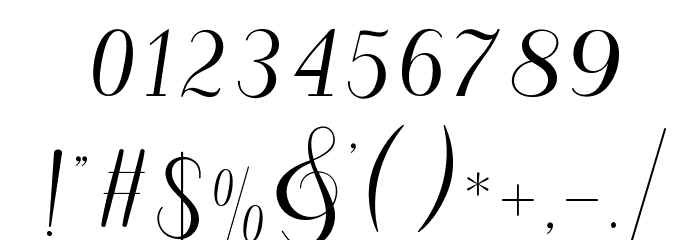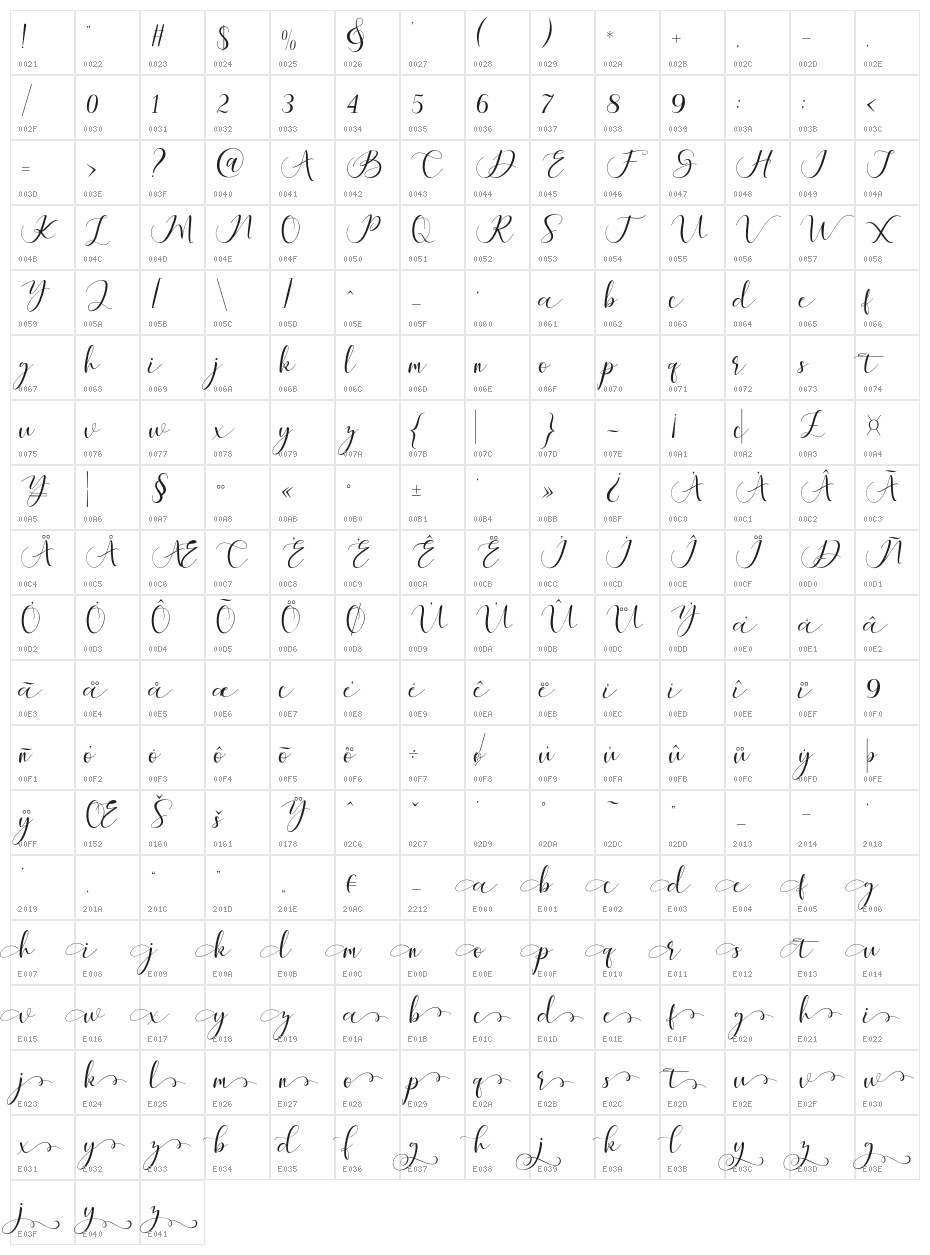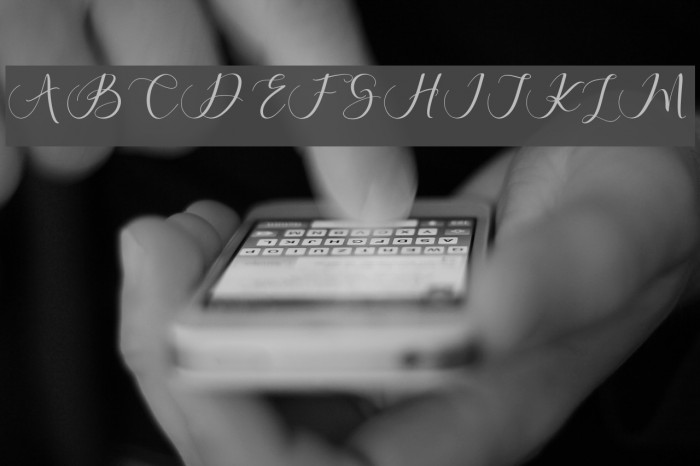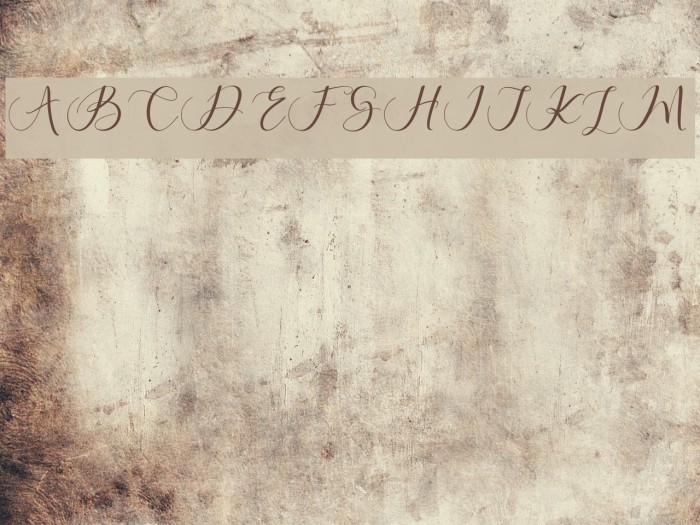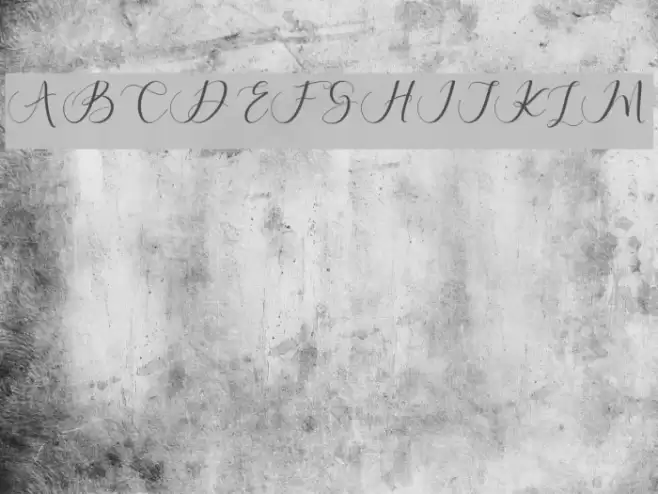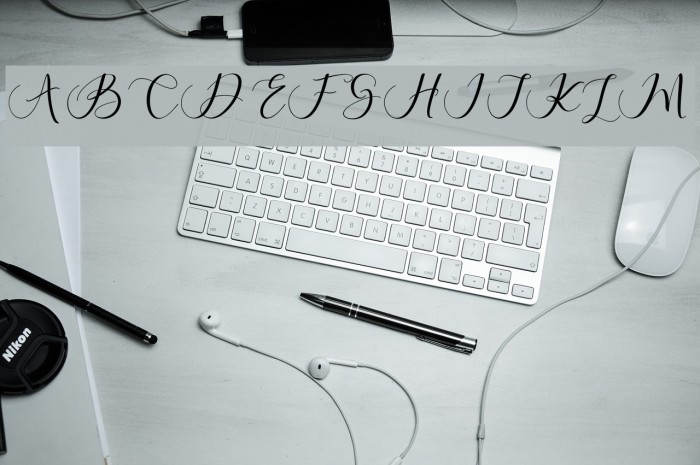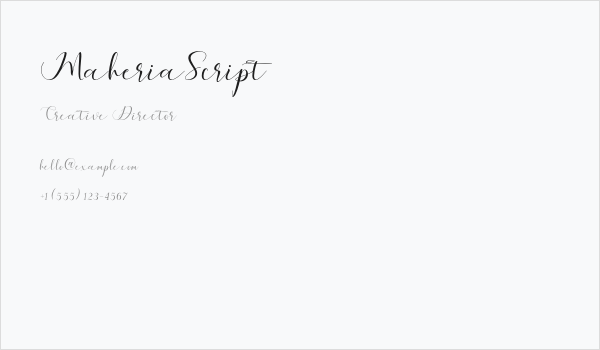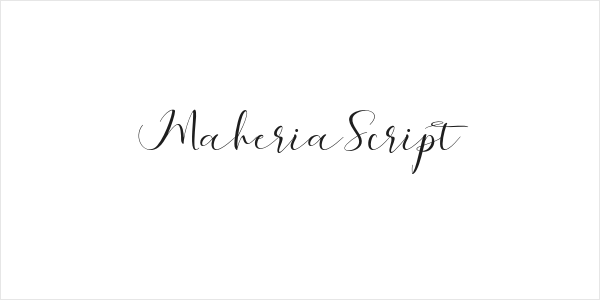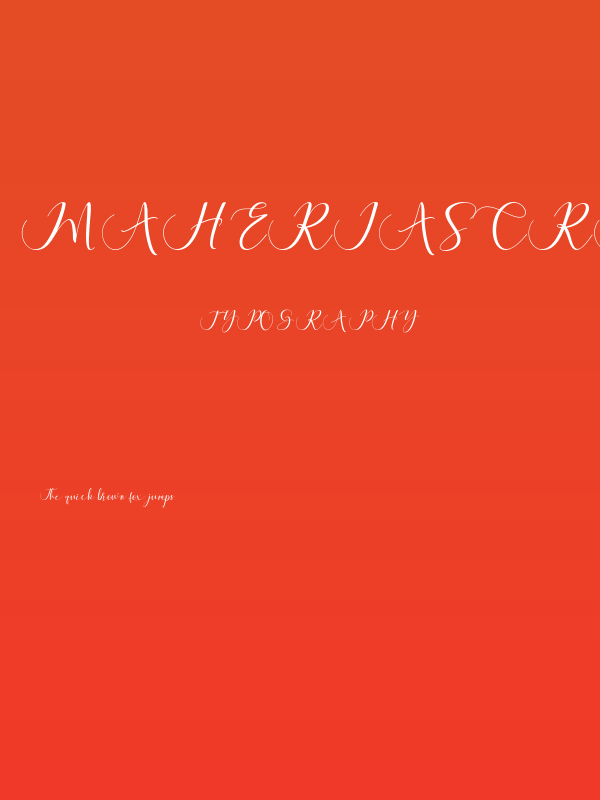
MaheriaScript Font
MaheriaScript Description
This elegant script font features flowing, interconnected letters that exude a sense of sophistication and grace. The uppercase letters are characterized by their sweeping curves and loops, creating a sense of movement and fluidity. The lowercase letters maintain this fluidity, with delicate ascenders and descenders that enhance the font's overall elegance. The numerals are stylish and maintain the script's fluid nature, while the special characters are seamlessly integrated, ensuring consistency across all glyphs. This font is perfect for projects that require a touch of elegance and sophistication, such as wedding invitations, formal event branding, or high-end product packaging.
| Proposed Projects | Ideal for wedding invitations, luxury branding, and elegant product packaging. |